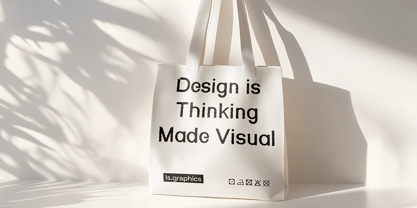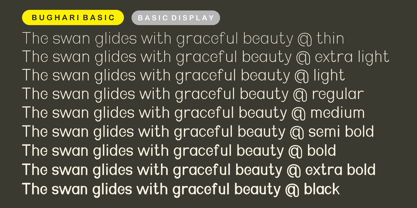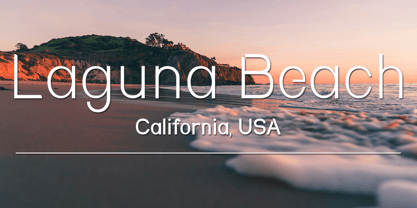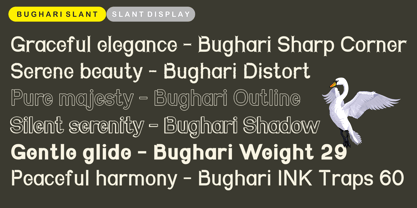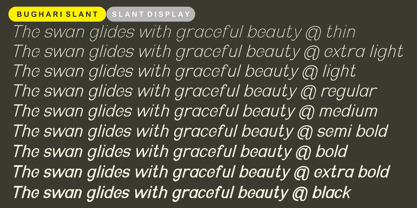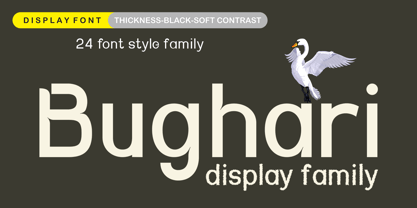
Bughari
by Zaki Creative
Bughari Display is a bold and elegant font family consisting of 24 unique styles. It features a soft contrast with varying thicknesses, making it perfect for designs that need a strong yet refined touch. With its modern and robust letterforms, Bughari Display adds visual character ideal for headlines, branding, posters, and various creative projects.
Its precise design details make Bughari Display highly versatile for a wide range of visual needs. Whether for personal or professional projects, this font ensures your message is delivered with sophistication. Bughari Display is also designed to be highly readable, with a clean and polished aesthetic that conveys professionalism.